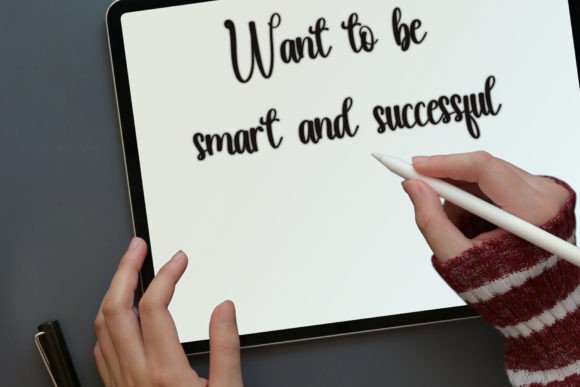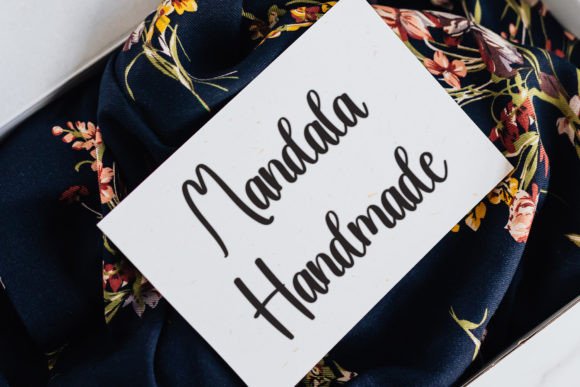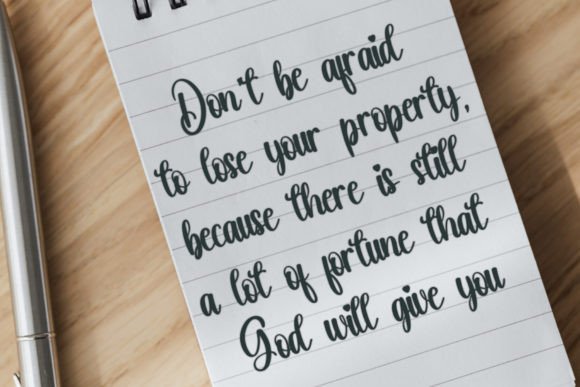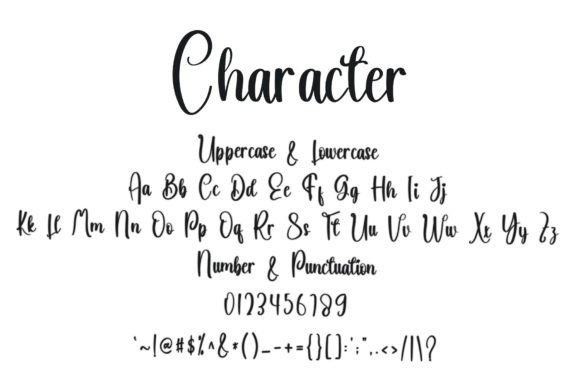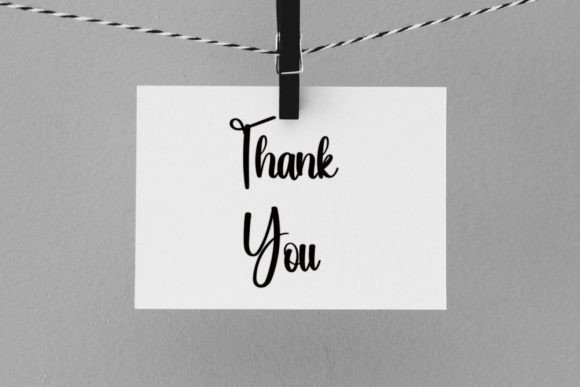
Unlock the Magic of Your Signature Style
Have you ever felt that rush of excitement when you stumble upon the perfect font to bring your design to life? It’s like finding a hidden treasure, and it’s a moment every designer can relate to. For those who crave a unique touch, the Creative Signature Font is here to make your projects shine.
This elegant handwritten font is designed to add an air of sophistication to any design, making it perfect for those special occasions when you want to make a statement. With its timeless style, the Creative Signature Font is a valuable addition to any designer’s toolkit, allowing you to create spectacular designs that leave a lasting impression.
Creative Signature Font Key Features
- Font Family: A unique, hand-drawn font with a personal touch, ideal for creating a signature or logo.
- Unique Characteristics: The font features subtle flourishes and connecting strokes, giving it a personal and handwritten feel.
Designer Review: Creative Signature Font
Overall, I think the Creative Signature Font is a great addition to any designer’s toolkit. Here are a few things that work well:
- ✨ Beautiful cursive script that’s perfect for adding a personal touch to any design
- ✨ Highly customizable, with a range of weights and styles to choose from
- ✨ Works well with a variety of fonts and design styles
- ⚠️ Not ideal for body text or large blocks of text, as the script can be difficult to read at small sizes
- ⚠️ Some of the more ornate styles can be a bit over-the-top, so be careful not to overdo it
- ⚠️ Limited language support, so you may need to use a separate font for non-English text
Overall, I think the Creative Signature Font is a great choice for designers who want to add a touch of elegance and sophistication to their designs. While it may not be suitable for every project, it’s a great addition to any designer’s toolkit.
Use the Creative Signature Font to add a personal touch to your branding, such as:
- Business cards and letterheads.
- Website headers and footers.
- Social media graphics and profiles.
The Creative Signature Font is perfect for:
- Personal branding.
- Business branding.
- Event marketing.
Alternatives to Creative Signature Font
Great Vibes is a modern, elegant script font perfect for creating a sophisticated and professional look. It’s ideal for designers who want to add a touch of luxury to their branding and marketing materials. Great Vibes is more polished and refined compared to Creative Signature Font, which makes it suitable for high-end brands and corporate communications.
Carolyna Pro is a beautiful, handwritten font that’s perfect for designers who want to add a personal touch to their work. It’s ideal for creating invitations, social media graphics, and other materials where a more casual and friendly tone is required. Carolyna Pro is more versatile and easier to read compared to Creative Signature Font, making it suitable for a wider range of applications.
Alex Brush is a elegant, handwritten font that’s perfect for designers who want to add a touch of sophistication and elegance to their work. It’s ideal for creating high-end branding materials, such as business cards, letterheads, and brochures. Alex Brush is more refined and polished compared to Creative Signature Font, making it suitable for luxury brands and high-end communications.
Ostrich Sans is a modern, sans-serif font that’s perfect for designers who want to create a clean and minimalist look. It’s ideal for creating digital materials, such as websites, social media graphics, and mobile apps. Ostrich Sans is more modern and edgy compared to Creative Signature Font, making it suitable for tech-savvy brands and innovative companies.